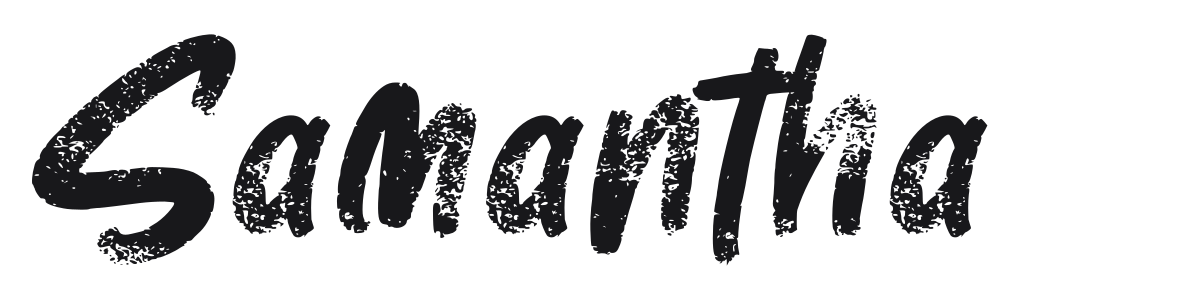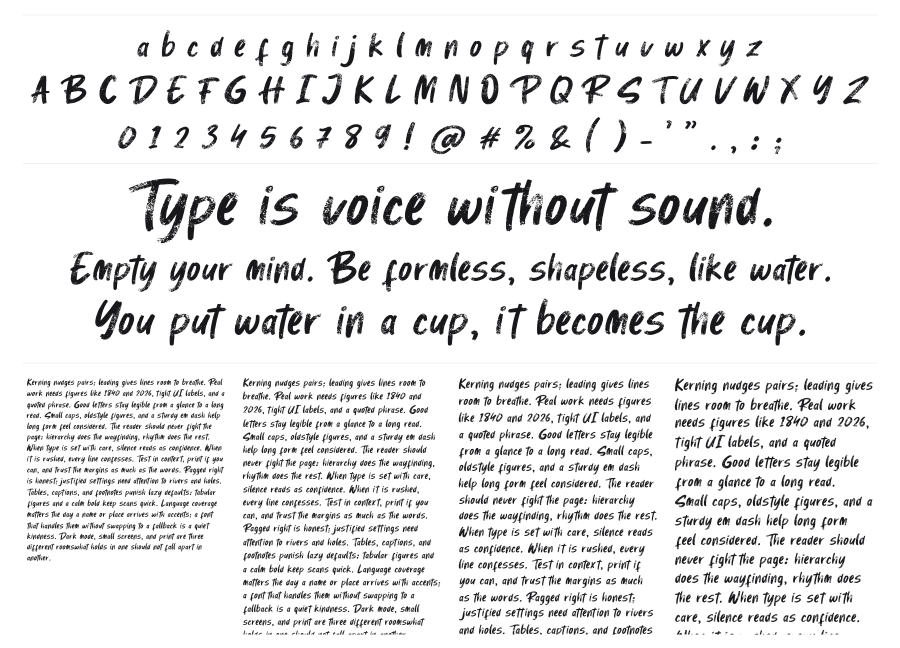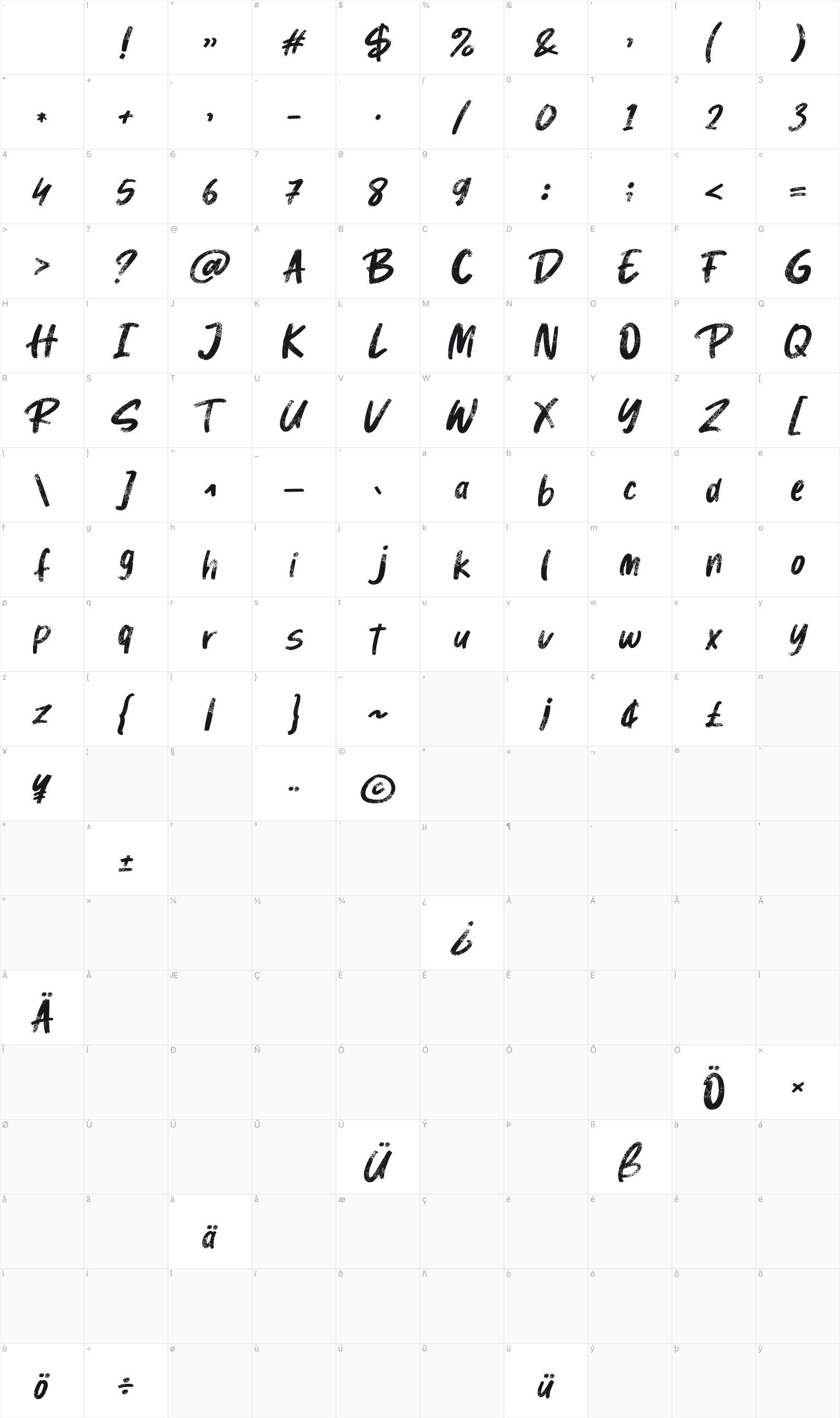
Samantha
Samantha is a bold, heavily textured brush script with bristle marks and ink erosion baked into every stroke. The roughness feels deliberate rather than accidental, giving it an authentic hand-painted energy that clean scripts can't replicate. Strong at large sizes for posters, labels, and branding that needs a lived-in, handcrafted attitude.